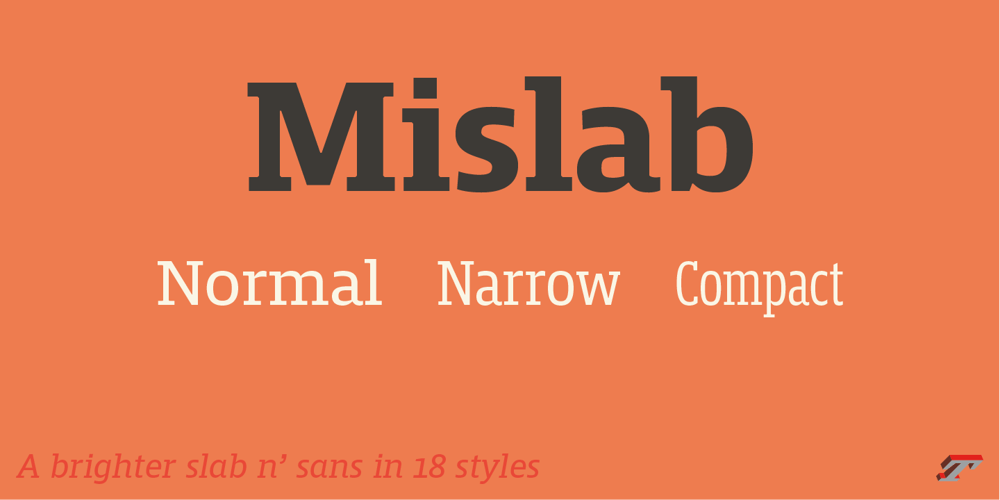
Mislab Std Font Family was designed by Xavier Dupré and published by Typofonderie. Mislab Std contains 18 styles and family package options. A brighter slab n’ sans in 18 stylesReferred to as Egyptian’s in the early years of the nineteenth century, today slab serifs are primarily used in display sizes but seldom used in body text. With Mislab, Xavier Dupré has designed a brighter and more legible slab serif than most. Mislab aptly combines the strength of a slab serif with the lightness of a sans serif.Bold and thick serifs make for strong impact in display uses while performing extremely well under the most stressful body text conditions. A slight cursive feel adds spice to the text while its delicate rounded rectangular structure is naturally adapted to screen displays. The capitals have fully assumed serifs while the lowercases have more discreet versions. Notable features include sanserif endings on the lowercase a, c, e & s, inducing fluidity and enhanced readability. This highly versatile typeface brings clarity to headlines. Mislab will provide foolproof stability to your layouts.Mislab, a new design by Xavier DupréType Directors Club 2014Tokyo TDC 2014Communication Arts Typography Awards 2014Club des directeurs artistiques, 45e palmarèsSlanted: Contemporary Typefaces #25